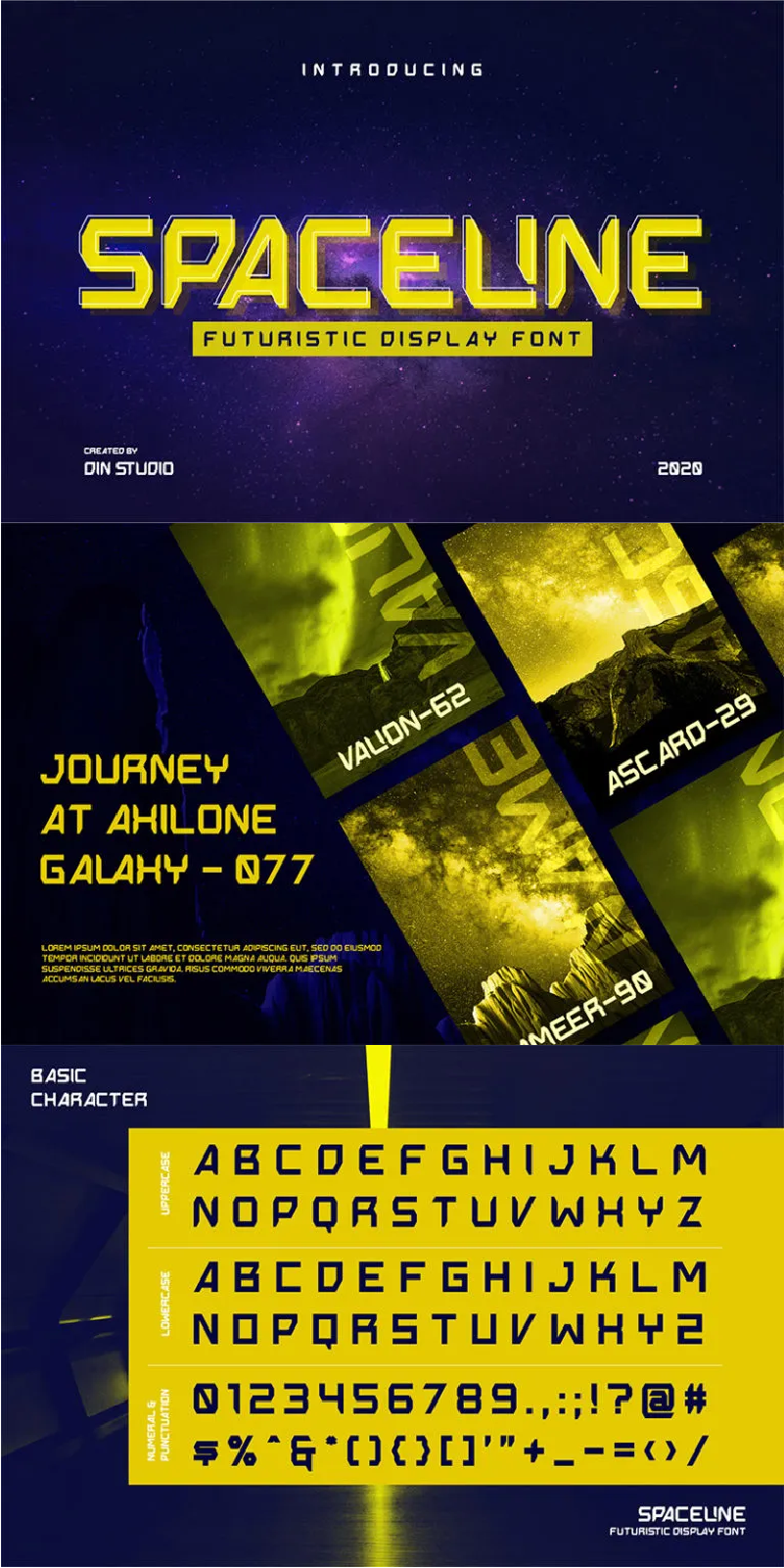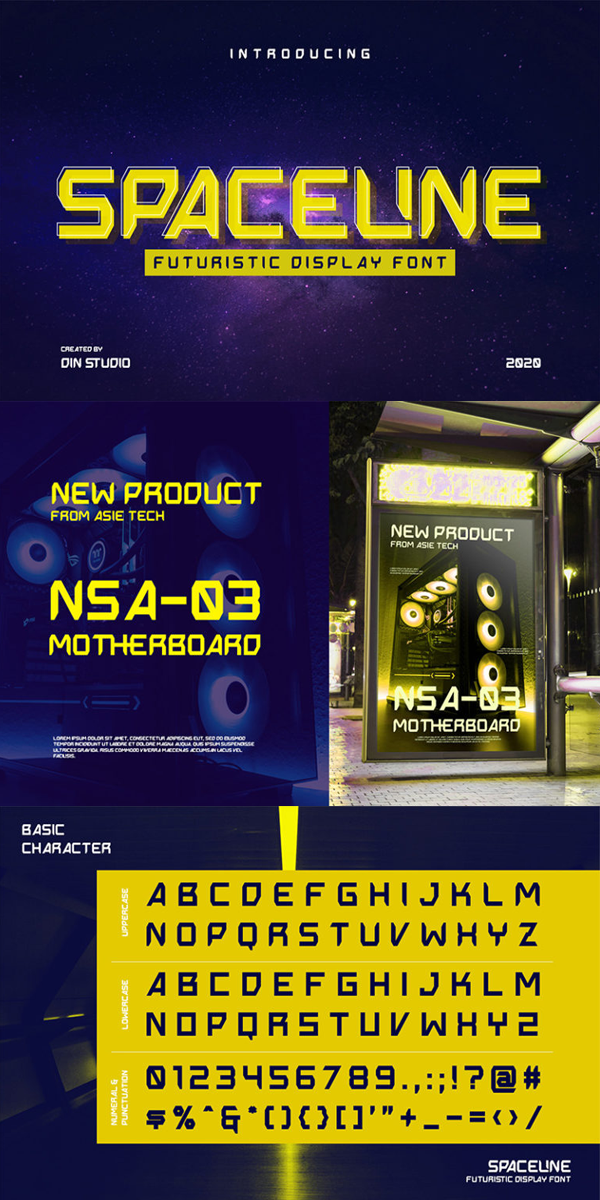
Spaceline Font
About Spaceline
Spaceline – A Futuristic Display Font
This typeface with futuristic style looks very interesting for loads of different projects and promotions. It is perfect to be used on your website, for your social media branding, Pinterest banners, printed products, and more! See the previews above to get some inspiration on how you can use them